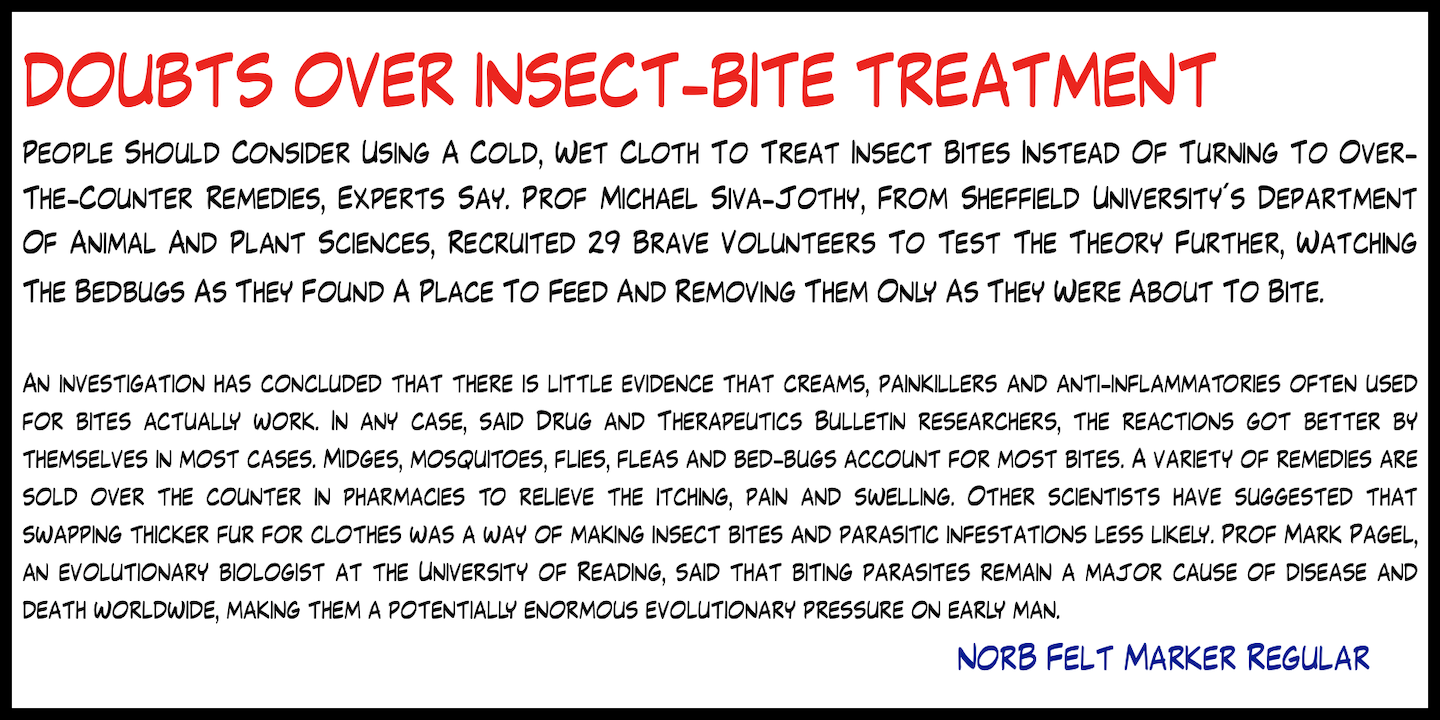
This handcrafted typeface is perfect for children's books, educational materials, art supply stores, craft workshops, handmade product branding, creative studios, kindergarten signage, coloring book covers, DIY project instructions, scrapbooking designs, casual restaurants, family-friendly events, and artistic learning centers. The font's marker-inspired design makes it ideal for projects that celebrate creativity, hands-on learning, and the authentic charm of handwritten expression.
NorB Felt Marker Font is exciting because it captures the spontaneous creativity and artistic freedom of felt-tip marker drawing through its authentic stroke letterforms and handcrafted character structure. The font's organic flow and playful proportions create an atmosphere of creativity, approachability, and artistic expression, making it perfect for brands that want to convey authenticity, fun, and the joy of creative exploration. Its handmade personality ensures instant warmth while maintaining excellent readability across various artistic applications.
The NorB Felt Marker Font family includes multiple artistic variations: Light Sketch, Regular Marker, Medium Bold Stroke, Bold Heavy Tip, and Black Super Marker weights, each capturing different marker pressure effects. Special creative editions feature textured alternates, artistic flourishes, and hand-drawn ornaments that enhance the font's authentic appeal, providing designers with comprehensive tools for creating genuine handcrafted communications.
Bring authentic creativity to life with NorB Felt Marker Font Free Download – a typeface that embodies the joy and spontaneity of artistic expression. Whether you're developing educational materials, craft branding, or family-oriented marketing campaigns, this font delivers the handmade charm and creative authenticity your projects need while ensuring exceptional performance and artistic impact across all creative and educational applications.